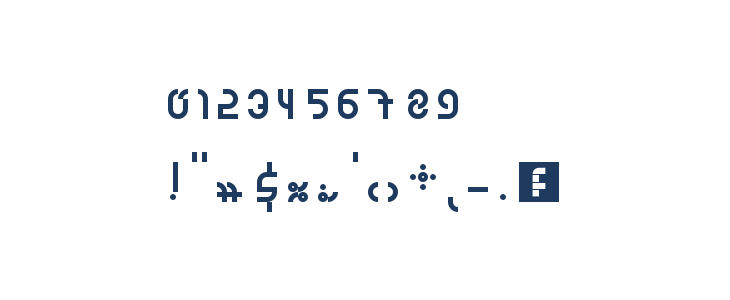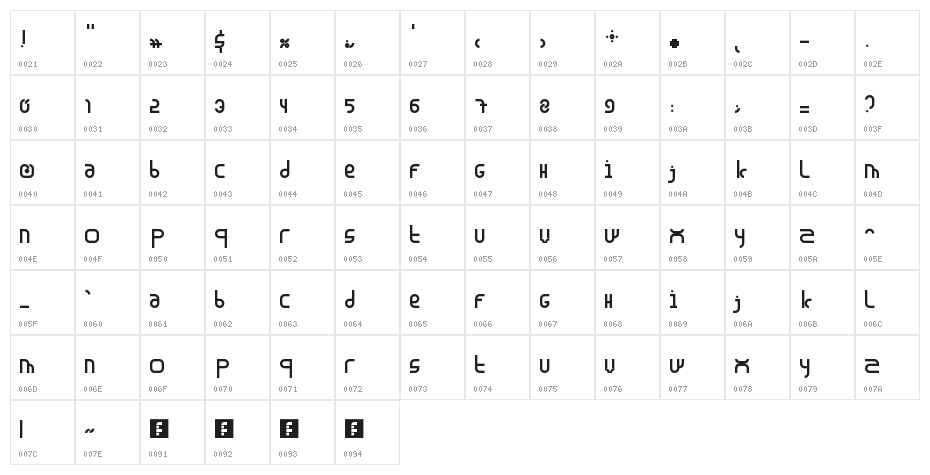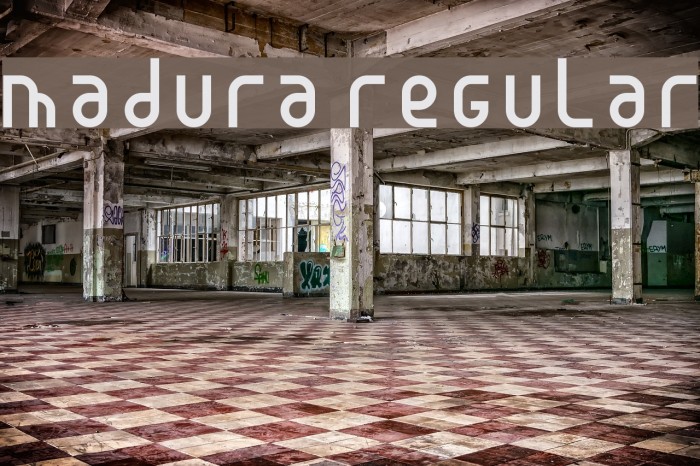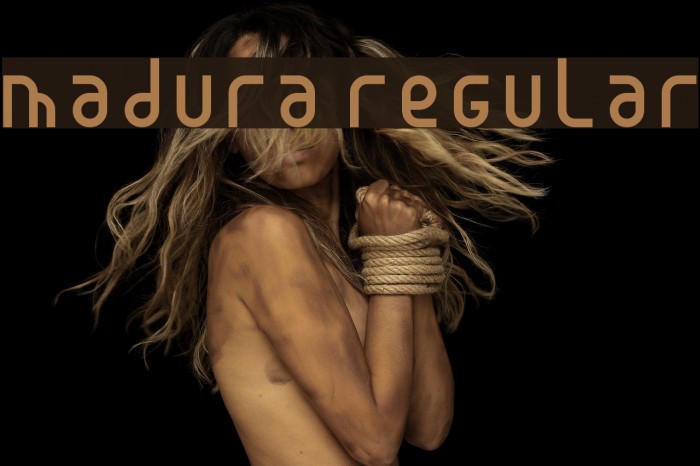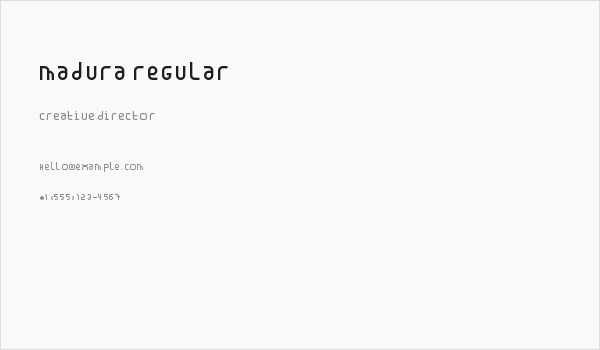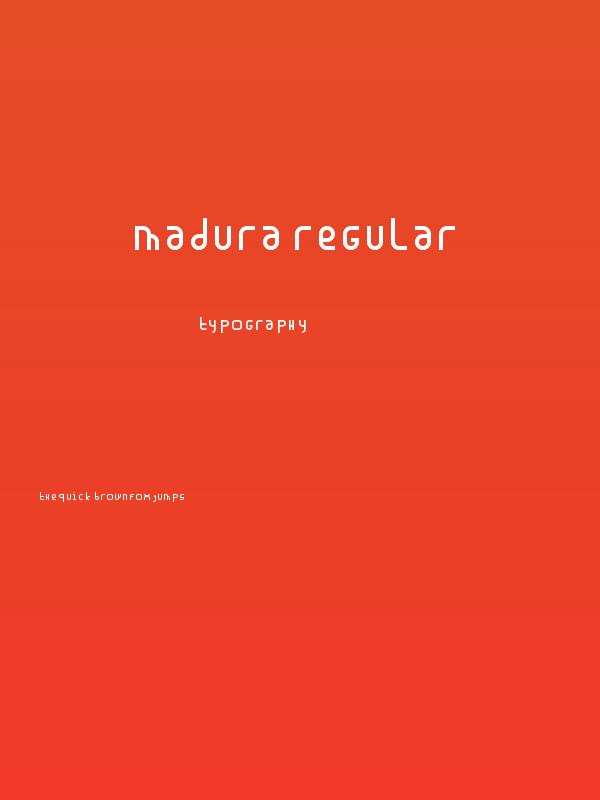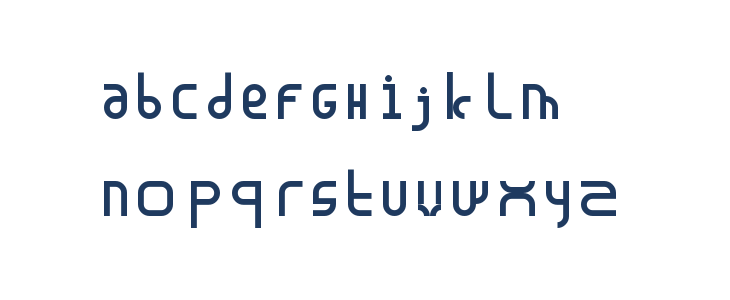
Madura Regular Font
Madura Regular Description
This font features a modern and geometric design with a unique blend of curves and straight lines. The characters have a distinct, futuristic appearance, characterized by rounded edges and consistent stroke widths. The uppercase and lowercase letters maintain a uniform style, creating a cohesive look. The numerals are designed with the same geometric precision, ensuring readability and style. Special characters are crafted to match the overall aesthetic, adding versatility to the font. This typeface is ideal for projects that require a contemporary and clean look.
Use CaseHeadlines, Logos, Digital interfaces
Proposed ProjectsIdeal for tech branding, modern advertising, digital interfaces, and futuristic designs.